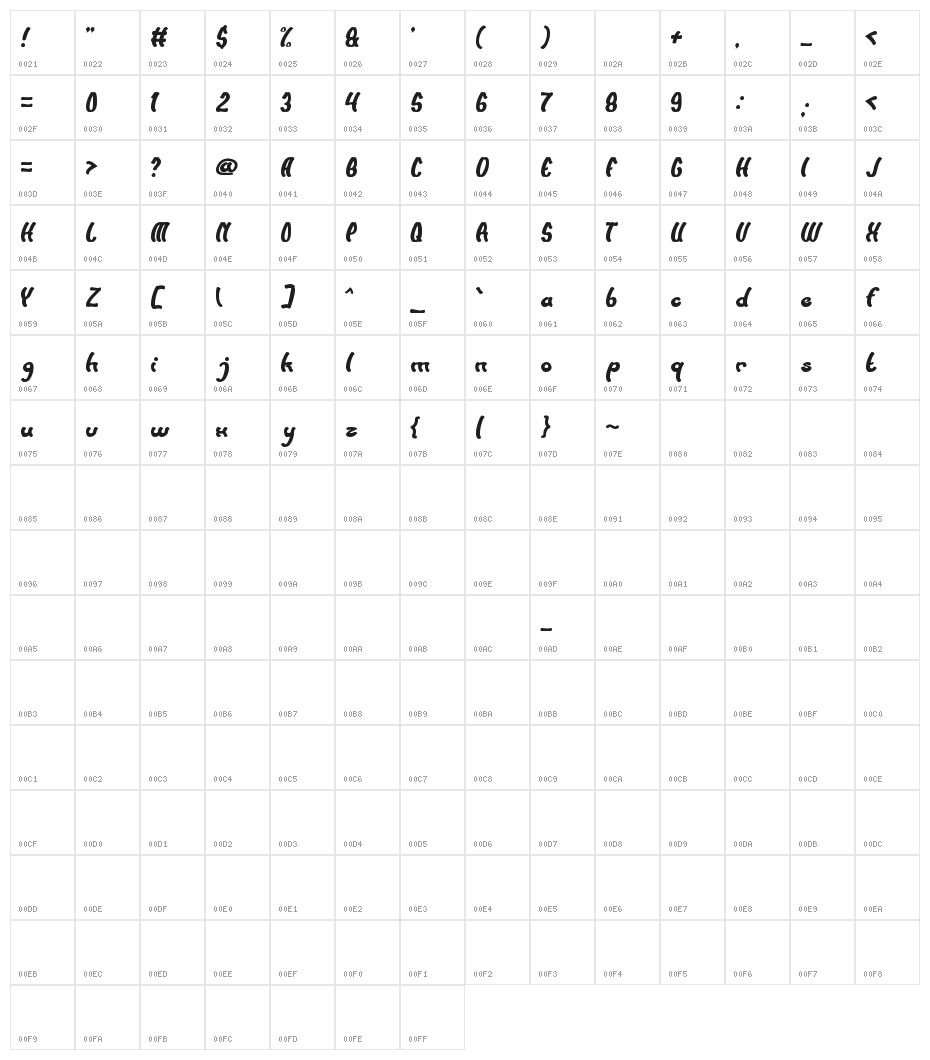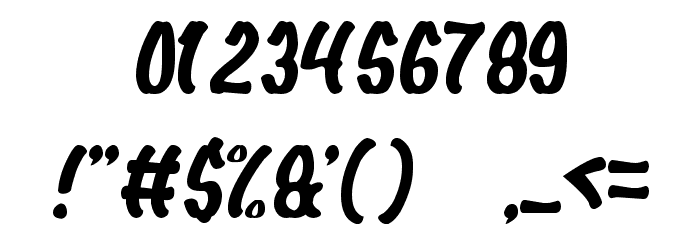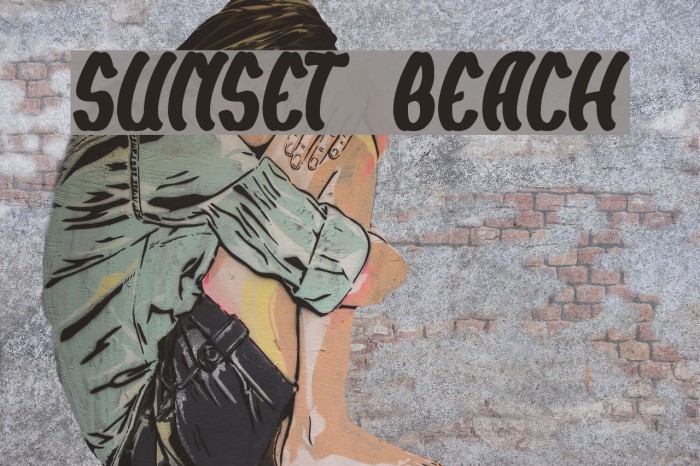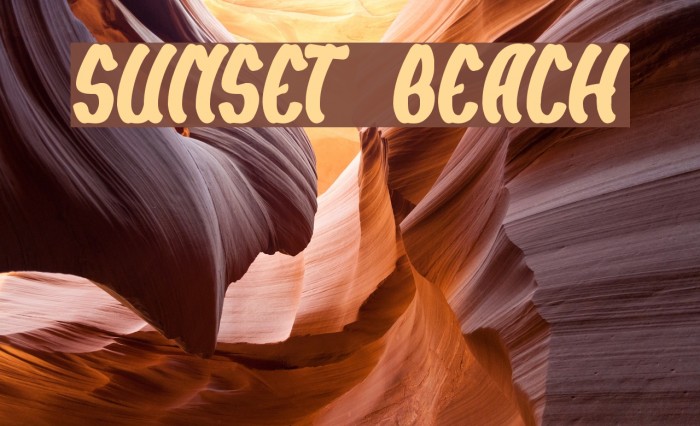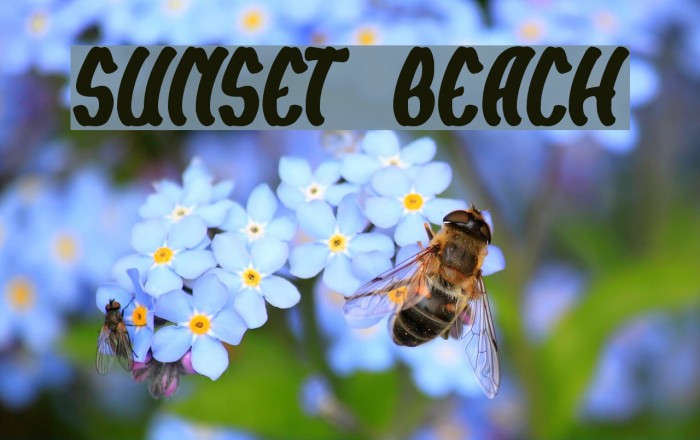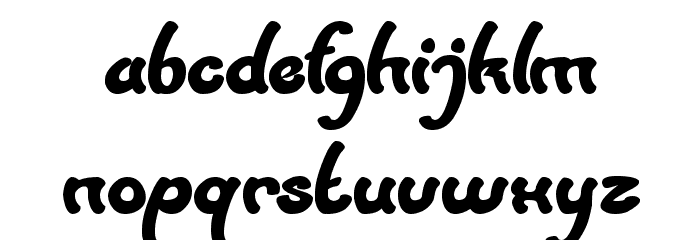
SUNSET BEACH Font
This font features a bold and playful design with a handwritten style. The characters are rounded and slightly slanted, giving a casual and friendly appearance. The uppercase letters are consistent in height, while the lowercase letters maintain a similar style with a slightly smaller size. The numbers and special characters follow the same playful aesthetic, making the font suitable for informal and creative projects. The strokes are thick and uniform, providing a strong visual impact.
| Proposed Projects | Ideal for greeting cards, children's books, playful branding, and casual invitations. |